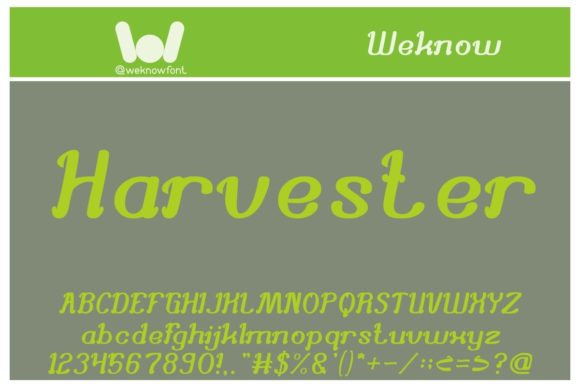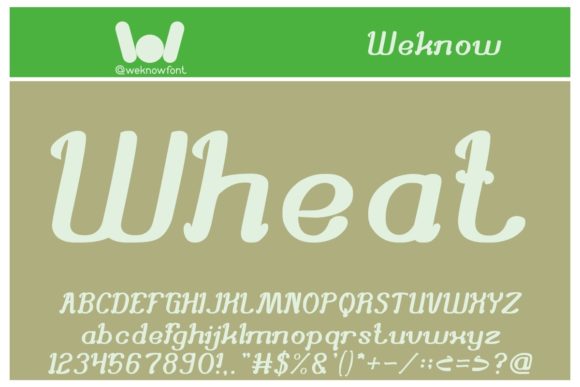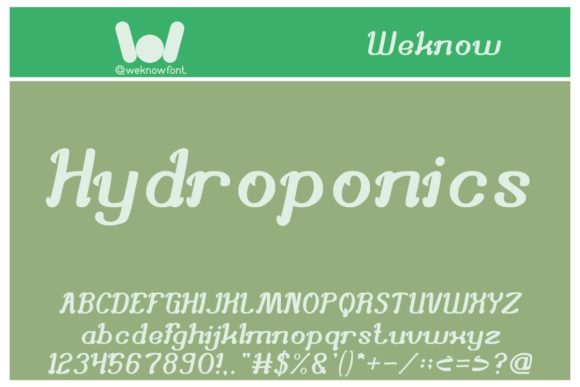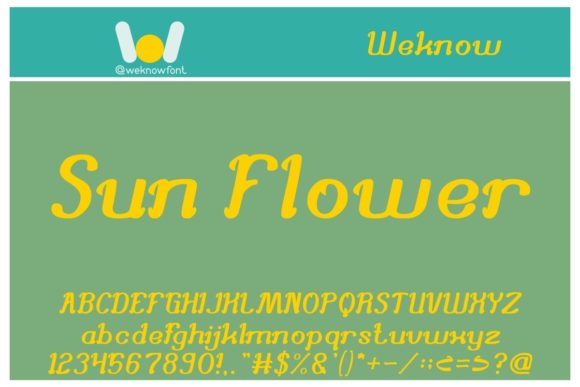
Introduction to Knowing How Font
Remember that moment when you’re brainstorming ideas for your latest design project and you stumble upon the perfect font? It’s like the entire design universe aligns, and everything just clicks. For designers, finding the right font can be a game-changer. It’s what elevates a good design to a great one, and that’s exactly what Knowing How Font does.
As a versatile and stylish font, Knowing How Font is perfect for a wide range of creative projects, from logos and logotypes to headlines and corporate identities. With its high-quality design and transparent background, it’s a valuable resource for designers who want to take their projects to the next level.
Key Features of Knowing How Font
- High-quality design resource ideal for creative projects, with a transparent background that allows for seamless integration into any design.
- Unique characteristics include a modern and sleek design aesthetic, making it perfect for use in a variety of creative projects, from digital art to print materials.
- Knowing How Font is designed to be highly legible and readable, making it an excellent choice for body text, headings, and other typography-heavy elements.
Honest Review: Knowing How Font
I recently stumbled upon the Knowing How Font while searching for a free download to elevate my creative project. As a designer, I’m always on the lookout for high-quality design resources that can help me bring my ideas to life.
- ✨ High-quality typography: The font is clean, modern, and visually appealing.
- ✨ Transparent background: This feature allows for easy integration with any design or image.
- ⚠️ Limited font styles: The font only comes in a few styles, which may limit its versatility.
Overall, I’m impressed with the Knowing How Font and its potential to elevate a design. While it may have some limitations, it’s a great resource for designers working on a personal project or those who need a high-quality font on a budget.
Knowing How Font
Knowing How Font is a high-quality design resource perfect for creative projects. This versatile font can be easily customized to suit your needs and is available for free download.
Knowing How Font is suitable for a wide range of creative projects, including:
- Graphic design and branding
- Print and digital advertising
- Infographics and data visualization